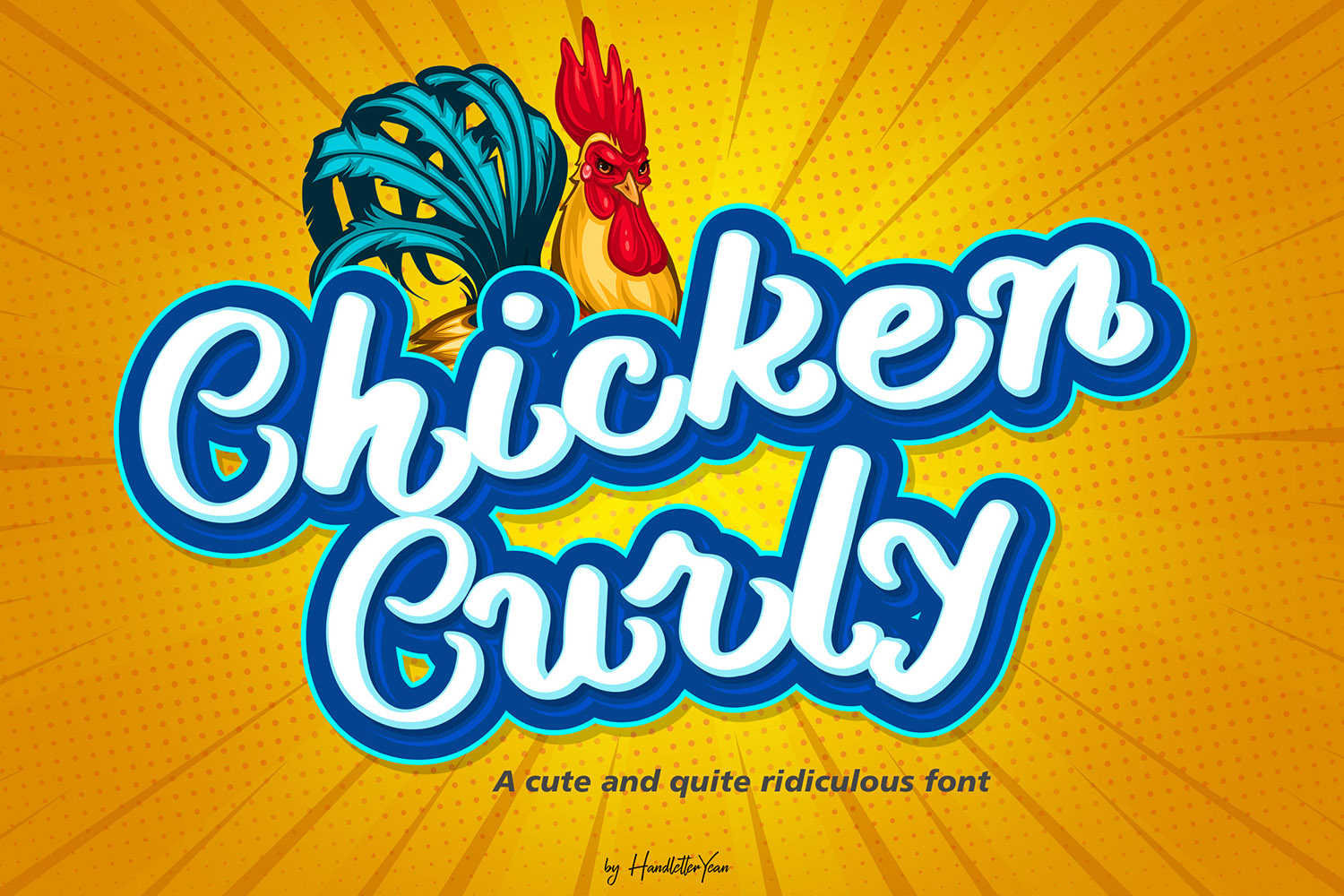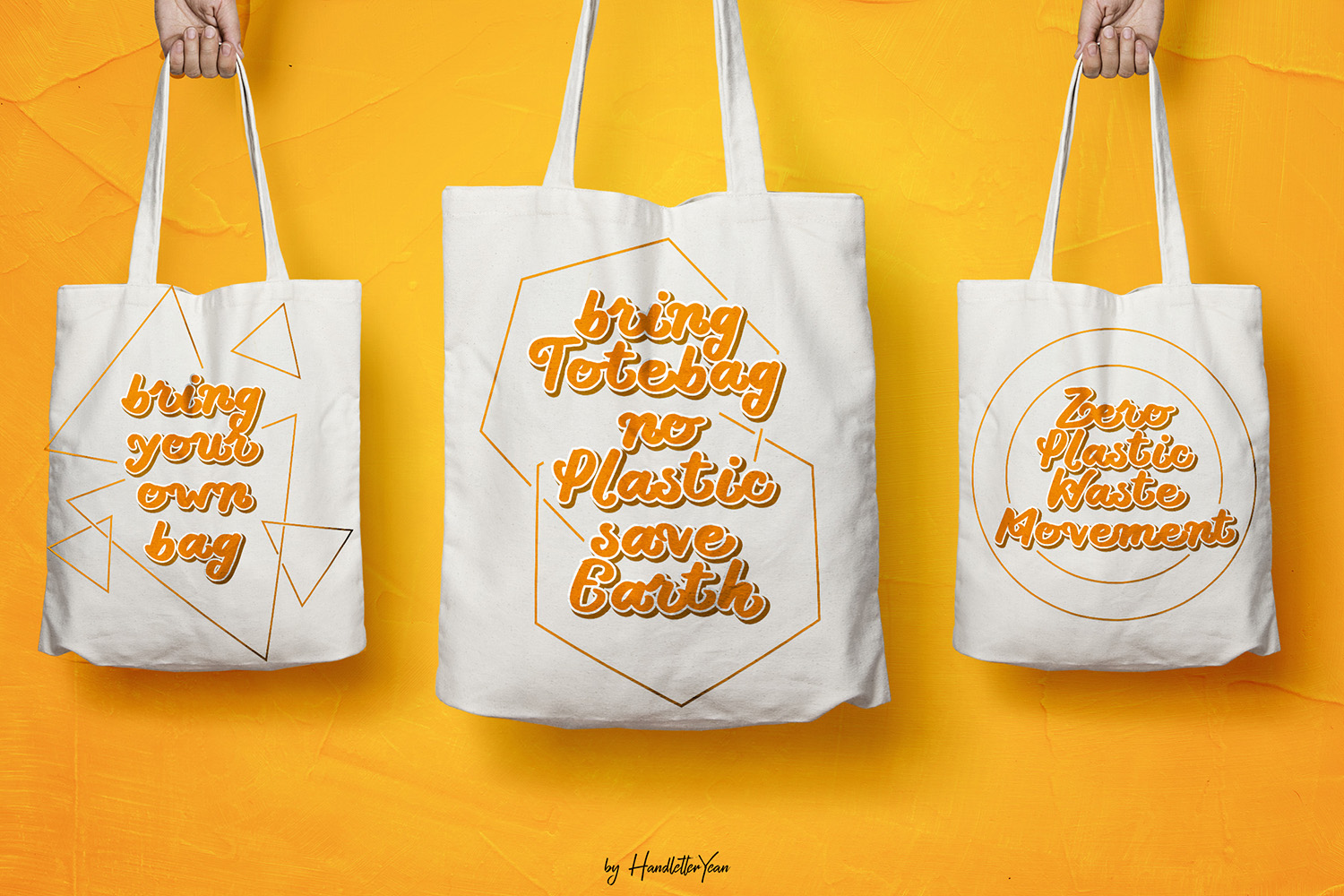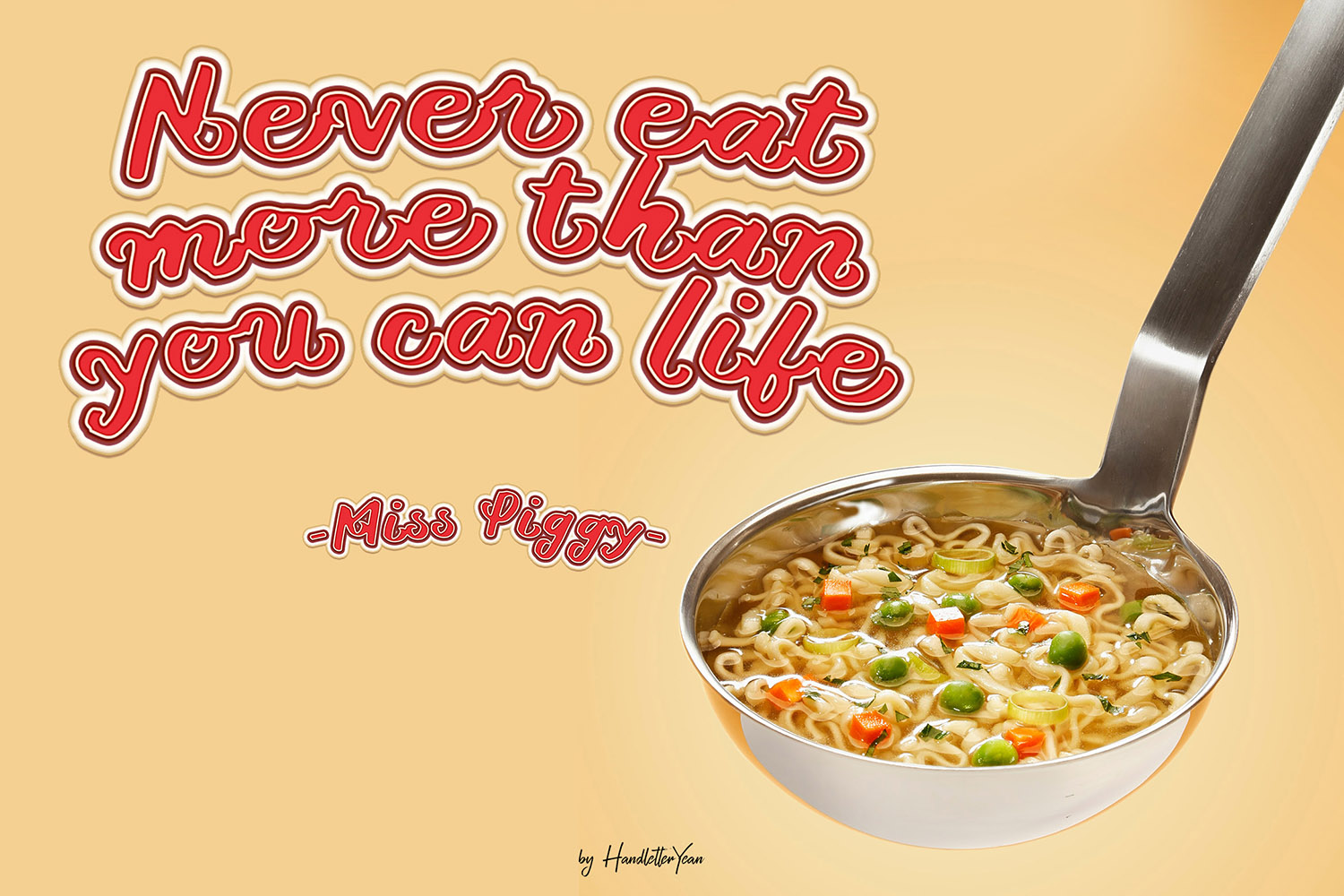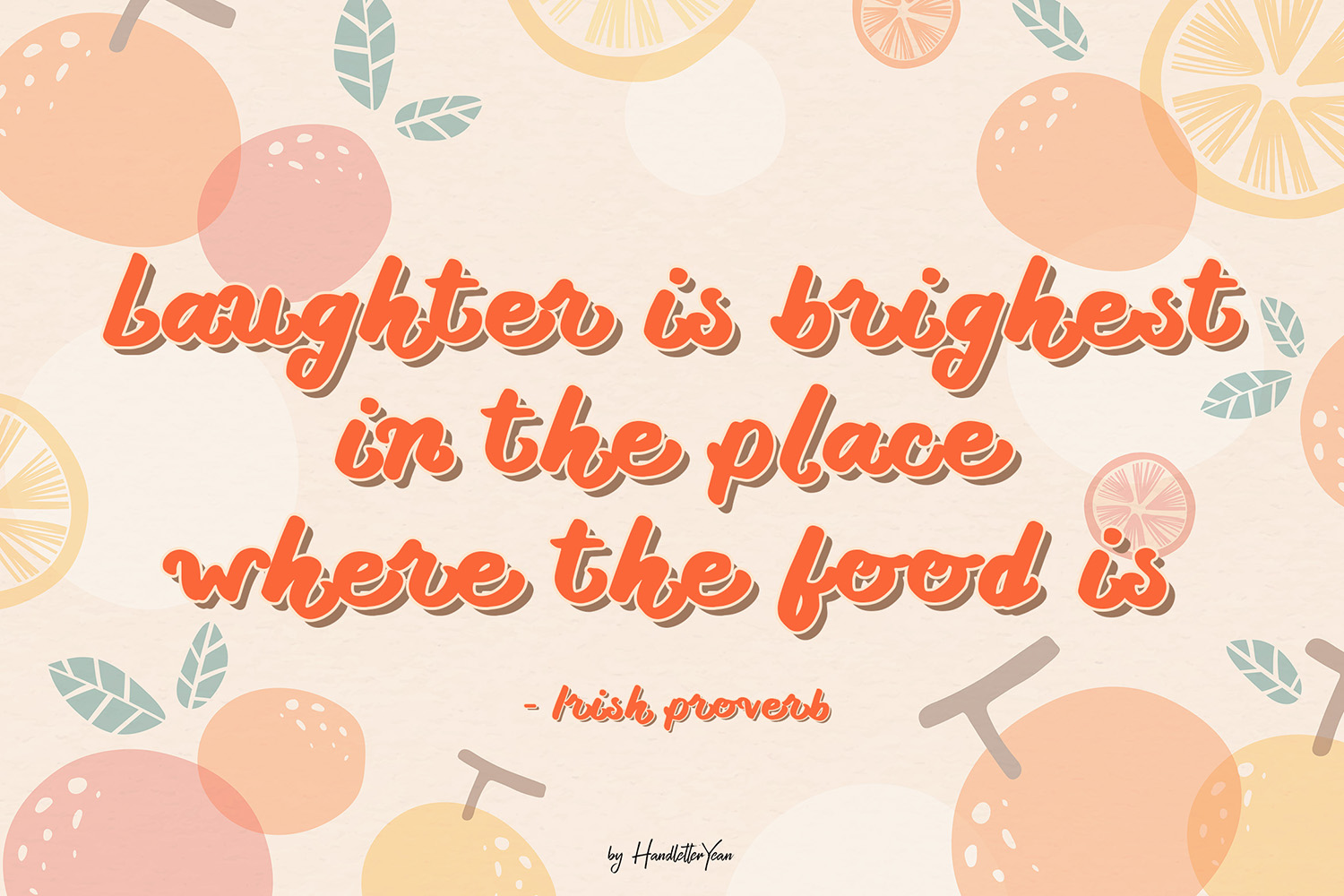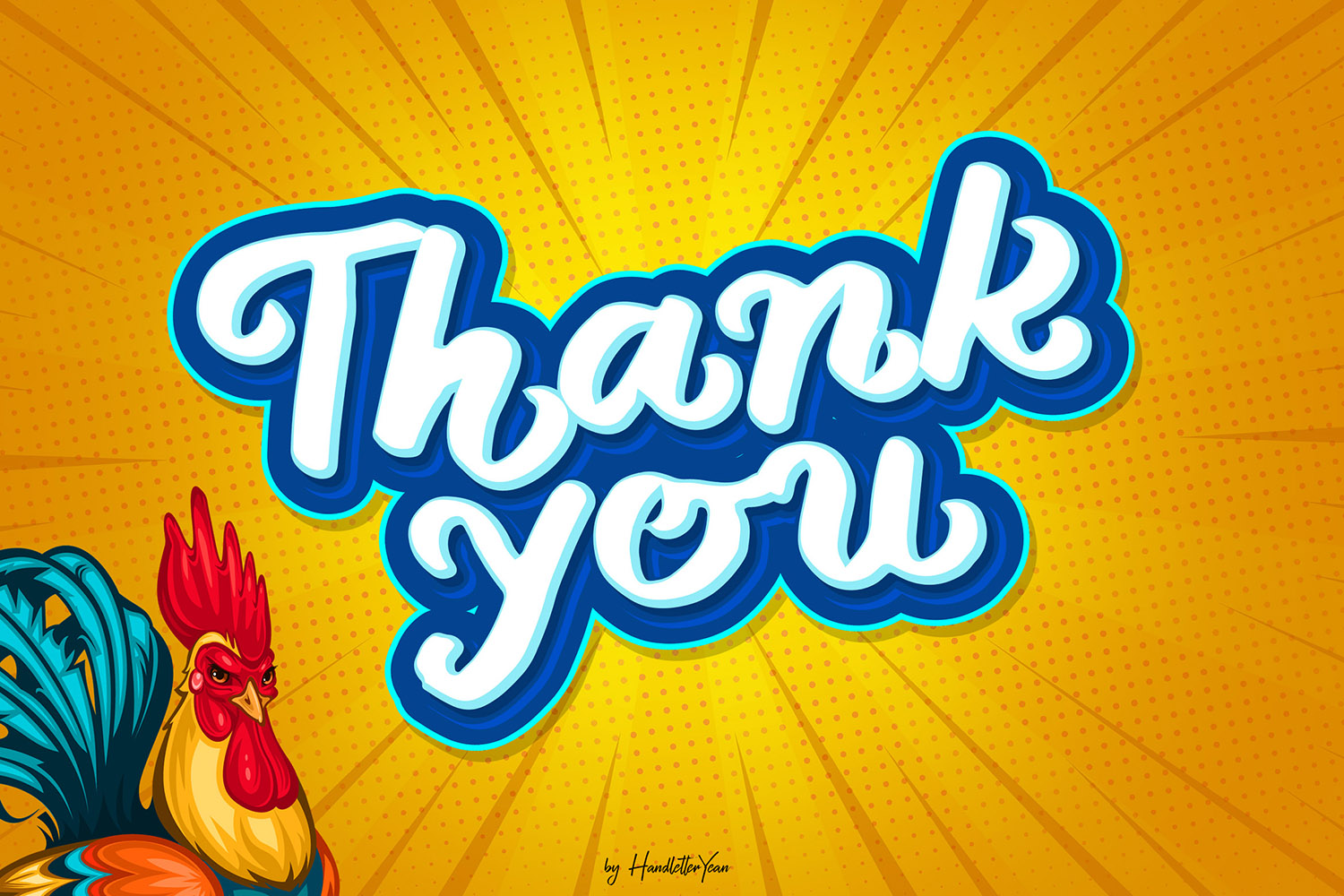
Chicken Curly Free Font
Chicken Curly Free Font is a cute and funny display font with a hilarious feel. It celebrates all the good things in life. It comes in 4 distinct versions, bold, bold-italic, and regular. This free typeface was designed by the talented Yean Aguste. If you like it don’t forget to check out the full version.